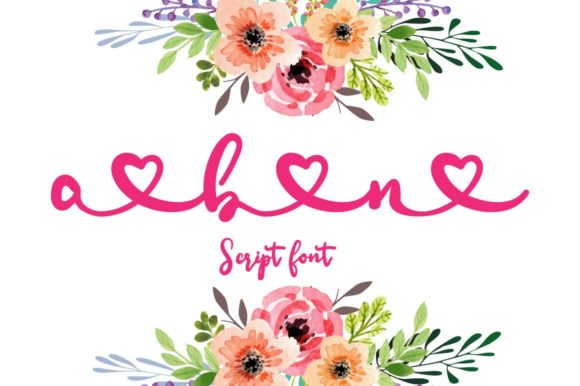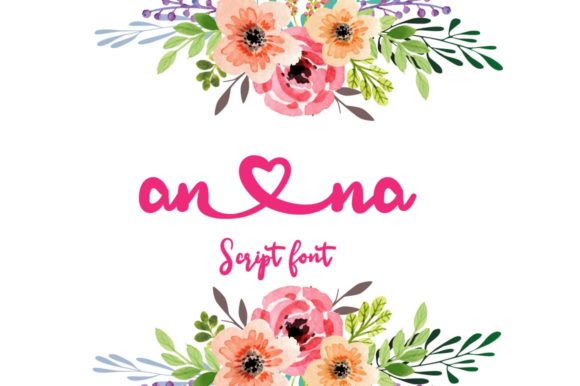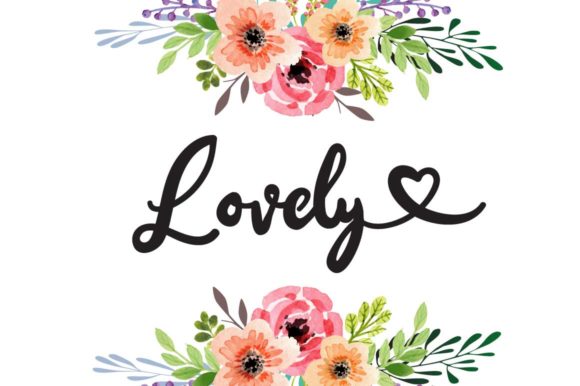
Introduction to Ana Bryan Font
Ana Bryan is an adorable and cute font with lovely, handwritten elements.
Use it for any design ideas that require a romantic twist .
Key Features of Ana Bryan Font
Why Choose Ana Bryan Font?
Ana Bryan Font offers exceptional quality and versatility, making it a valuable addition to your design toolkit. Whether you’re creating for personal projects or commercial use, Ana Bryan Font delivers professional results.